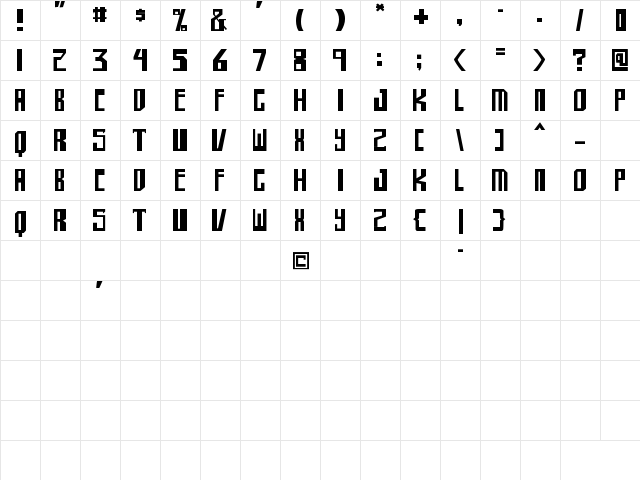
shellhead Regular
Design Context for shellhead Typeface
shellhead is a composed and adaptable typeface that performs quietly and consistently across a wide range of design contexts.